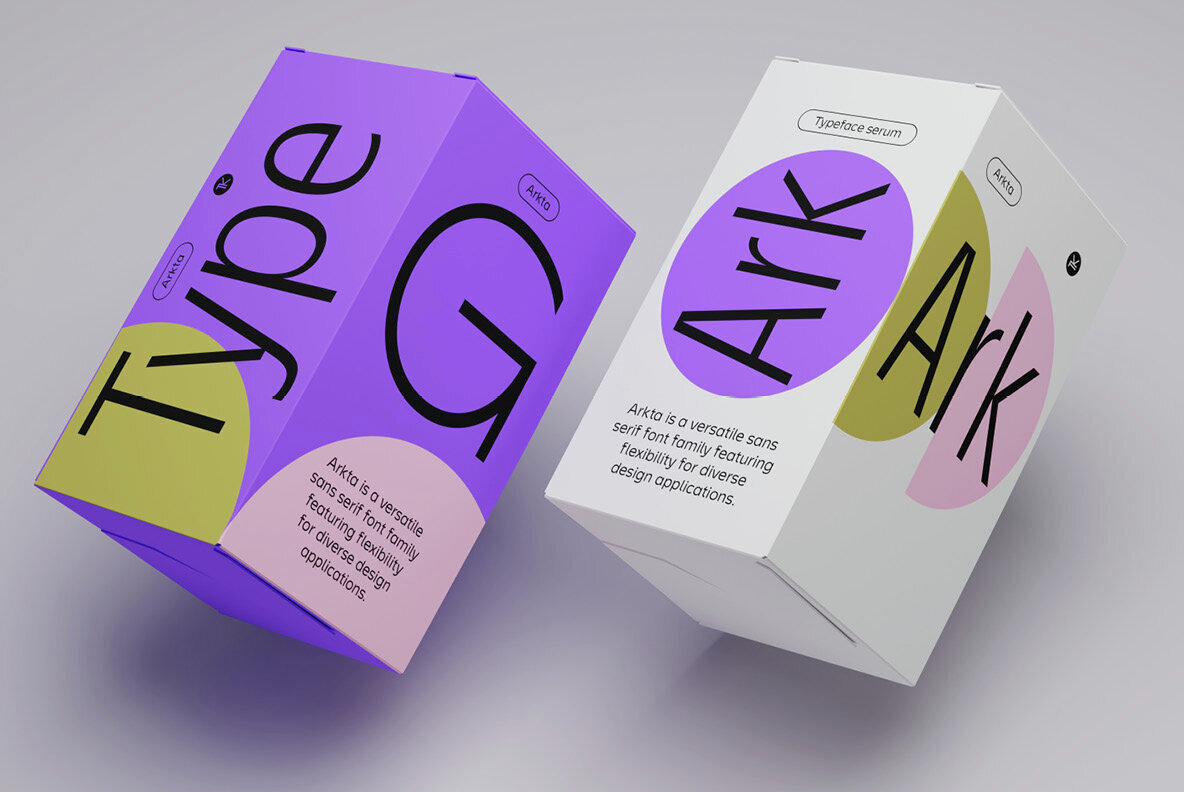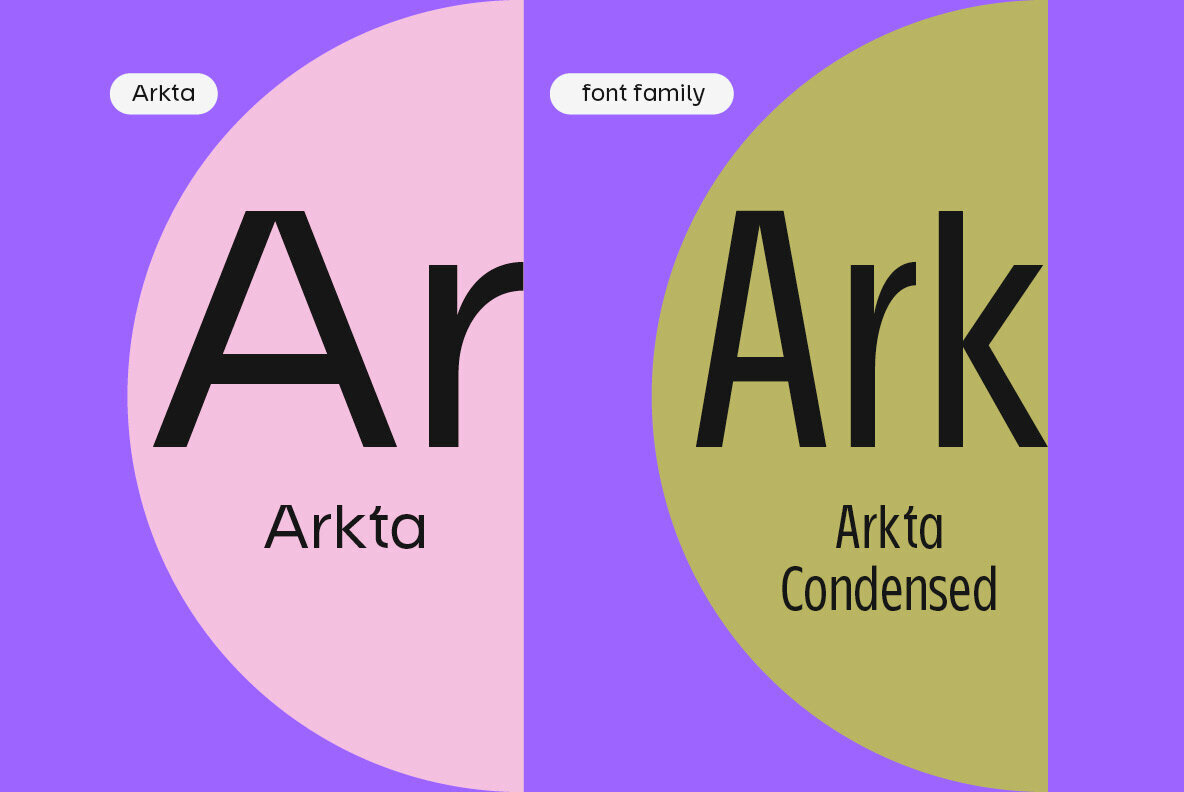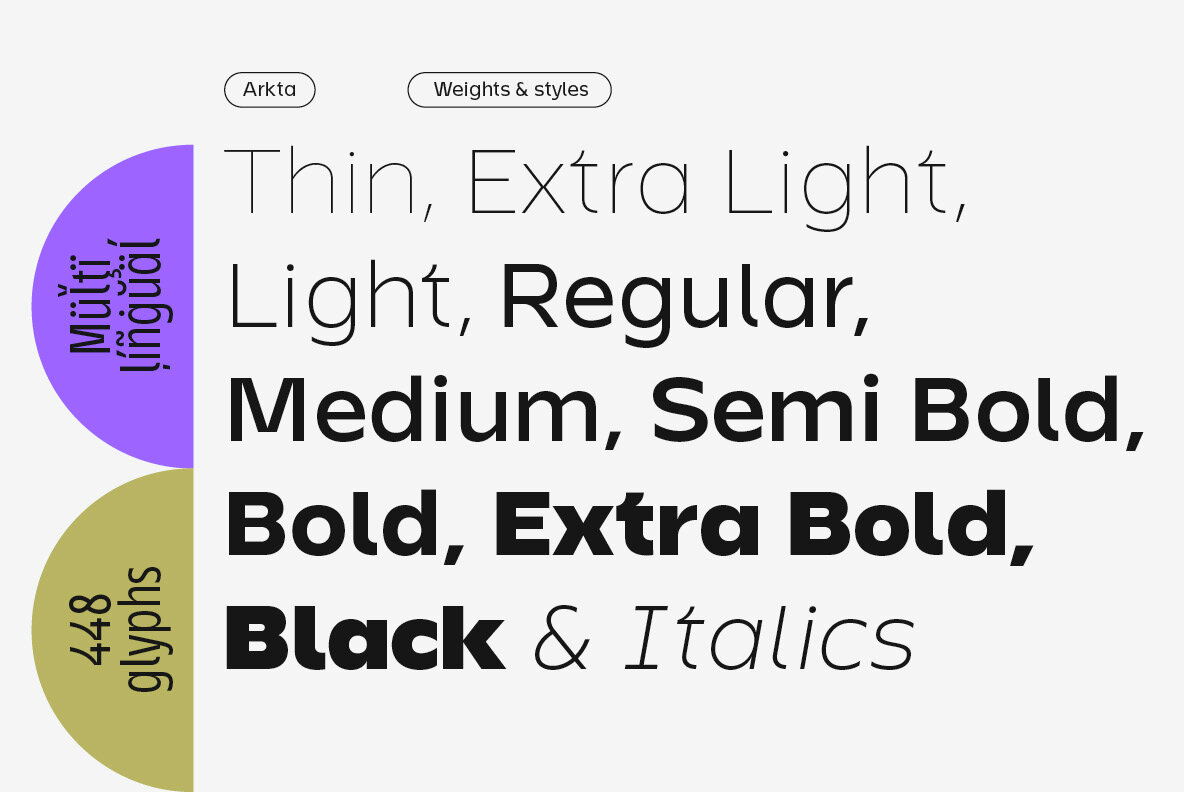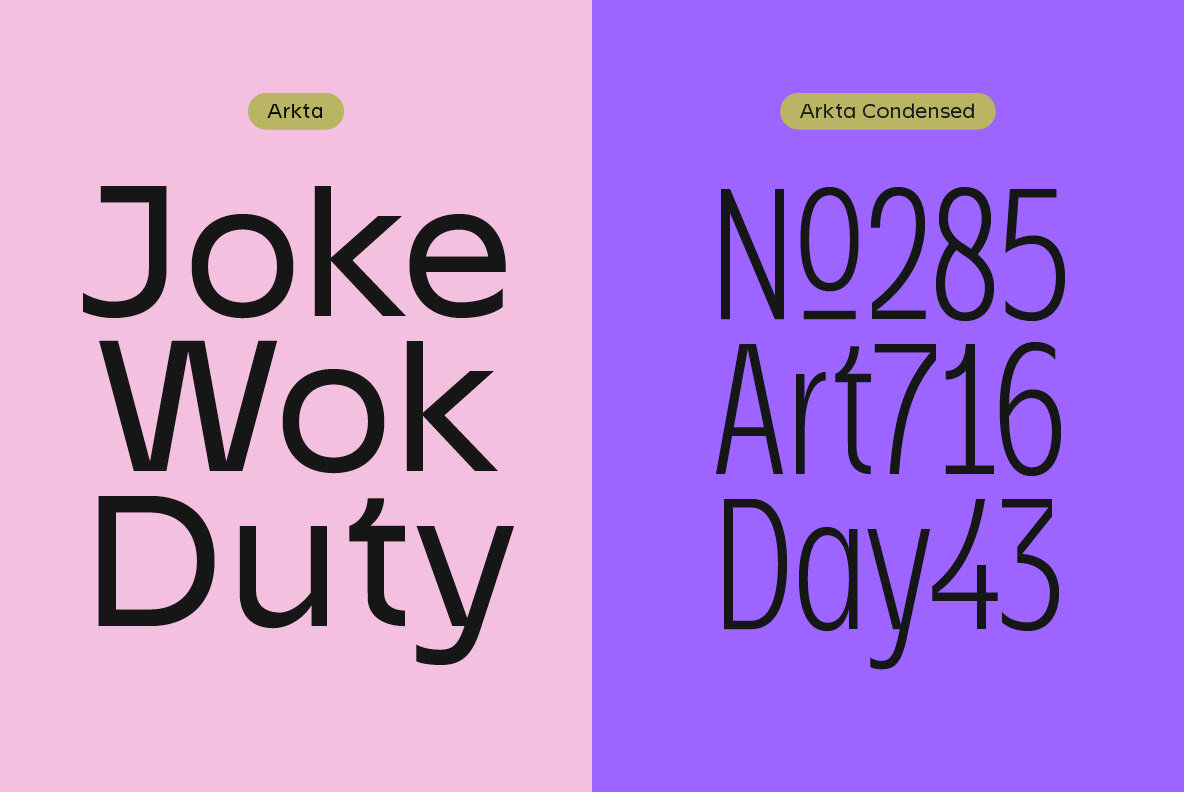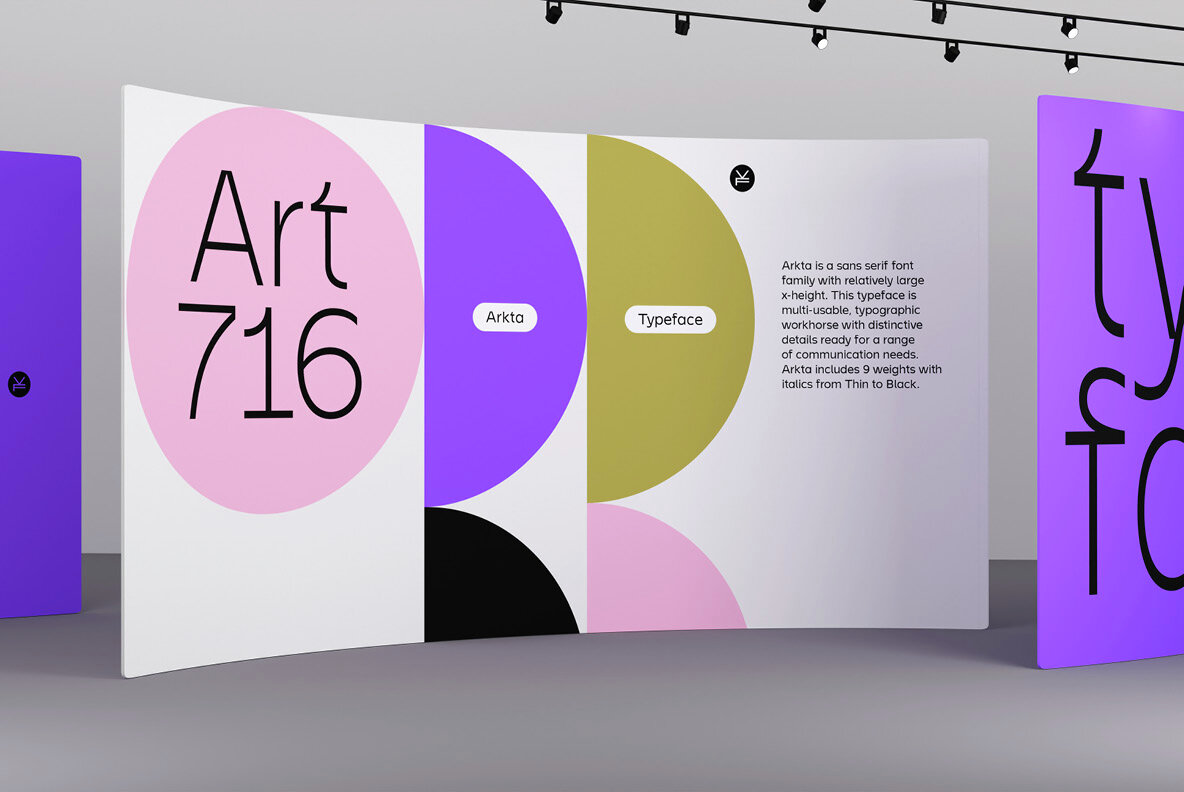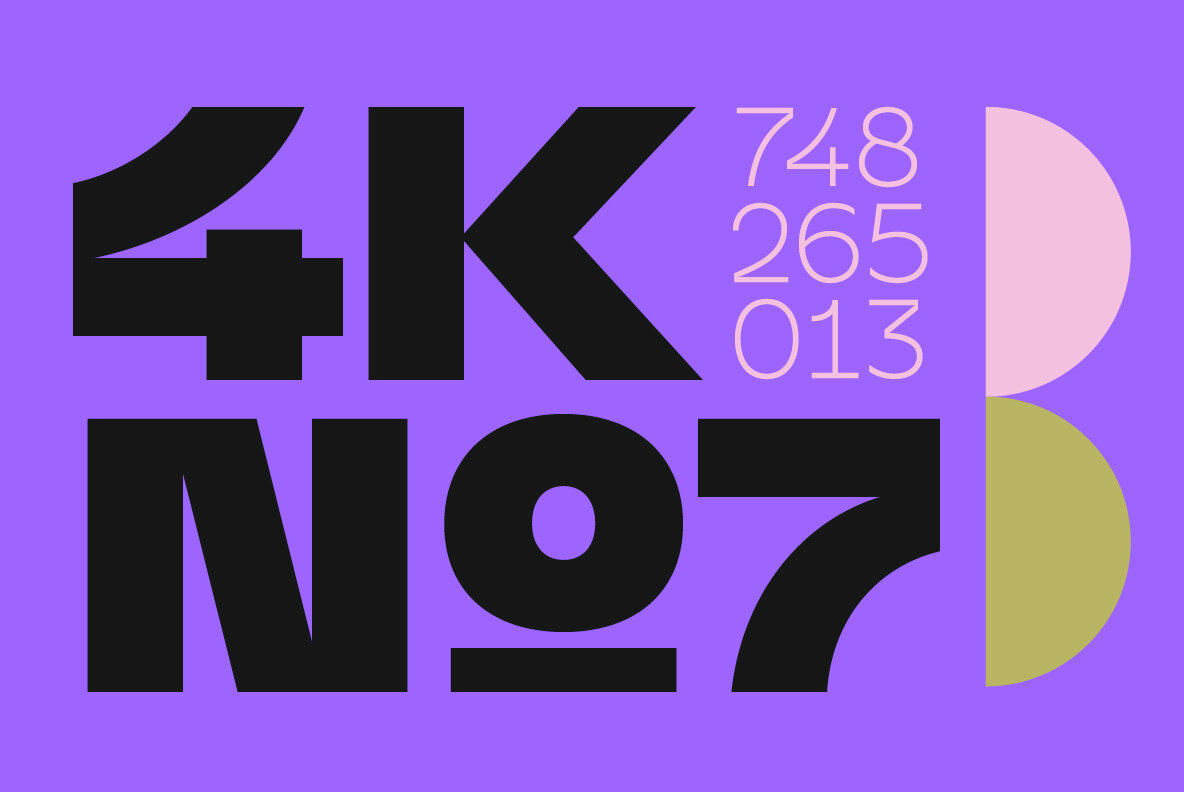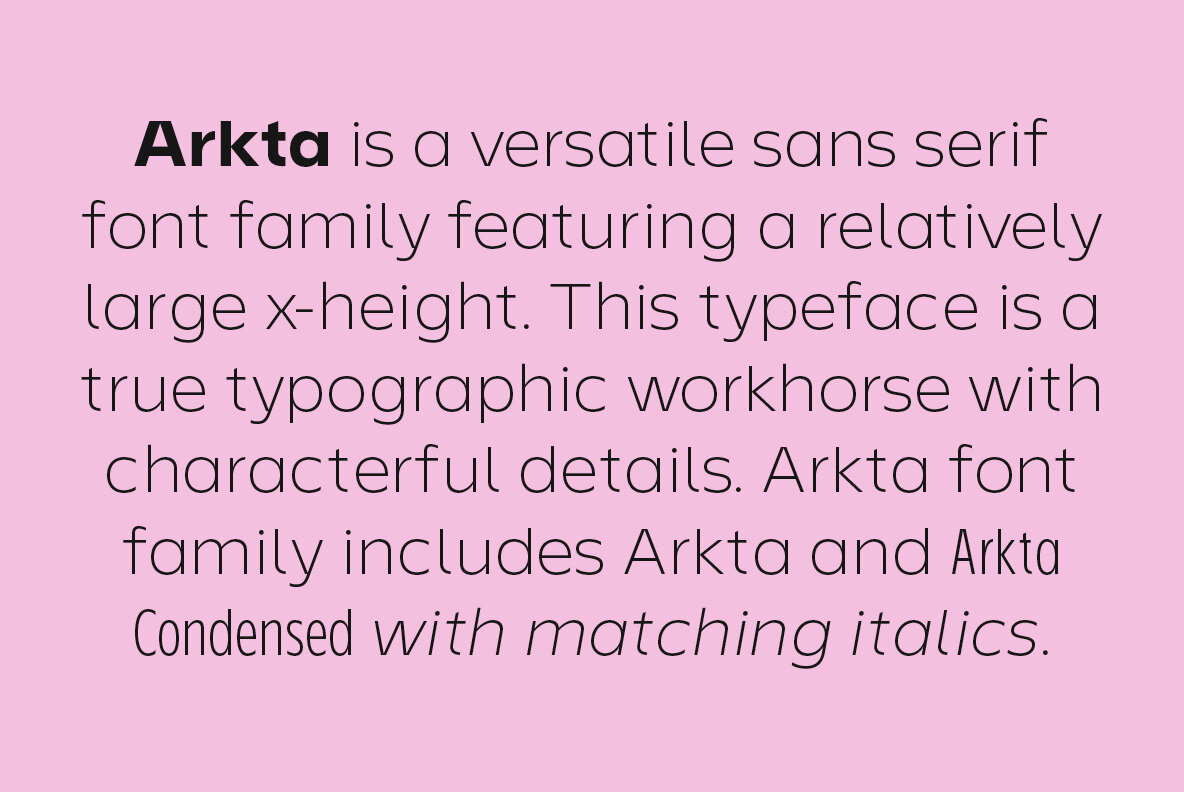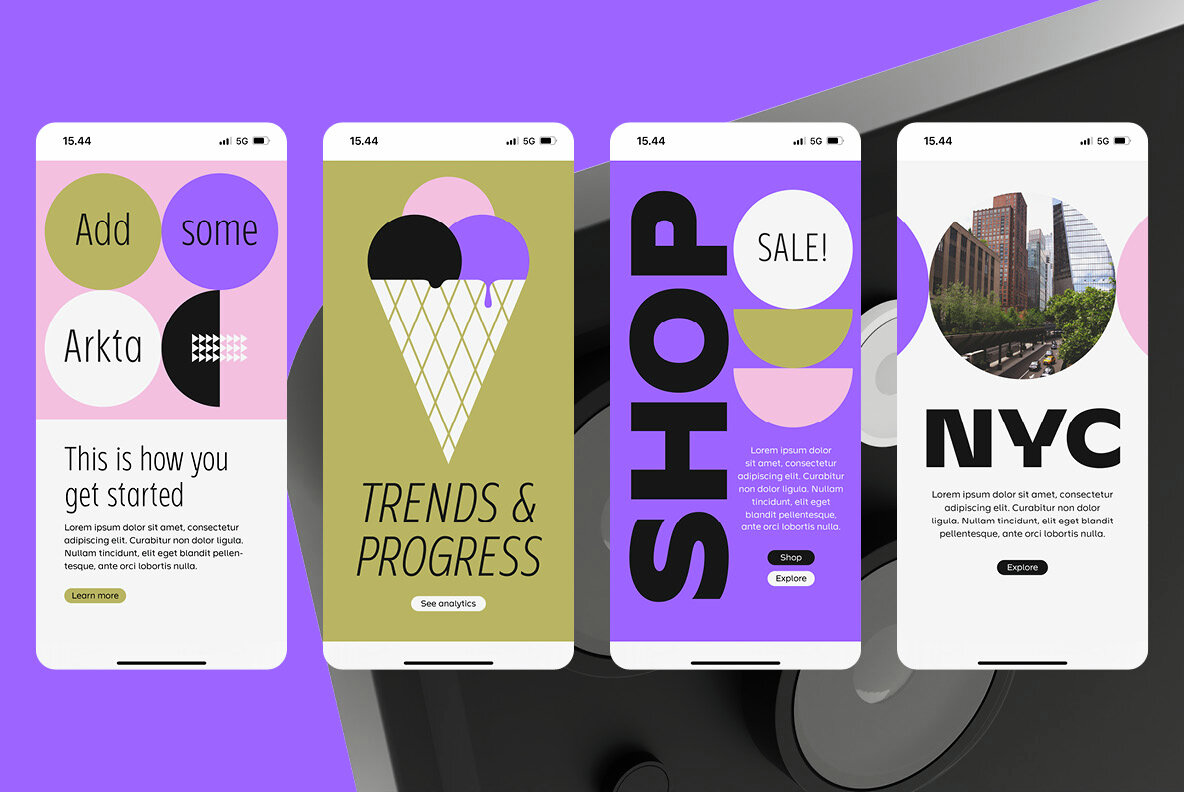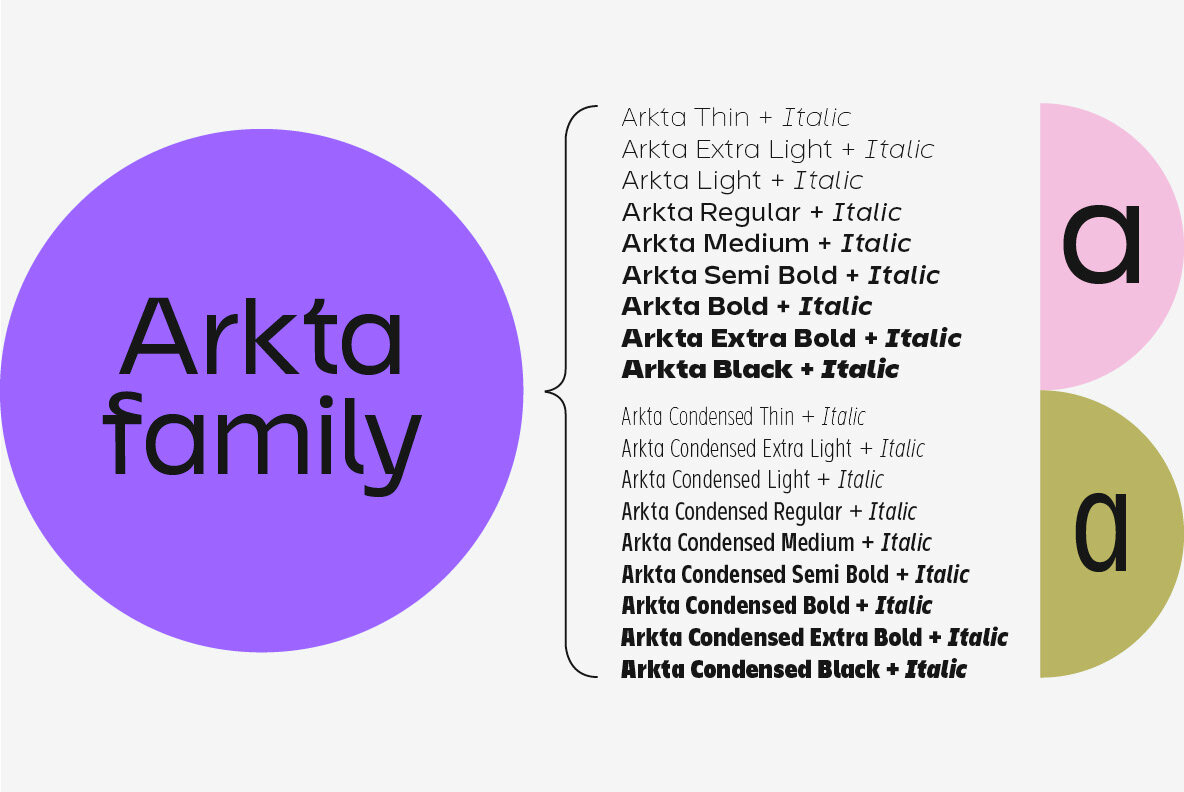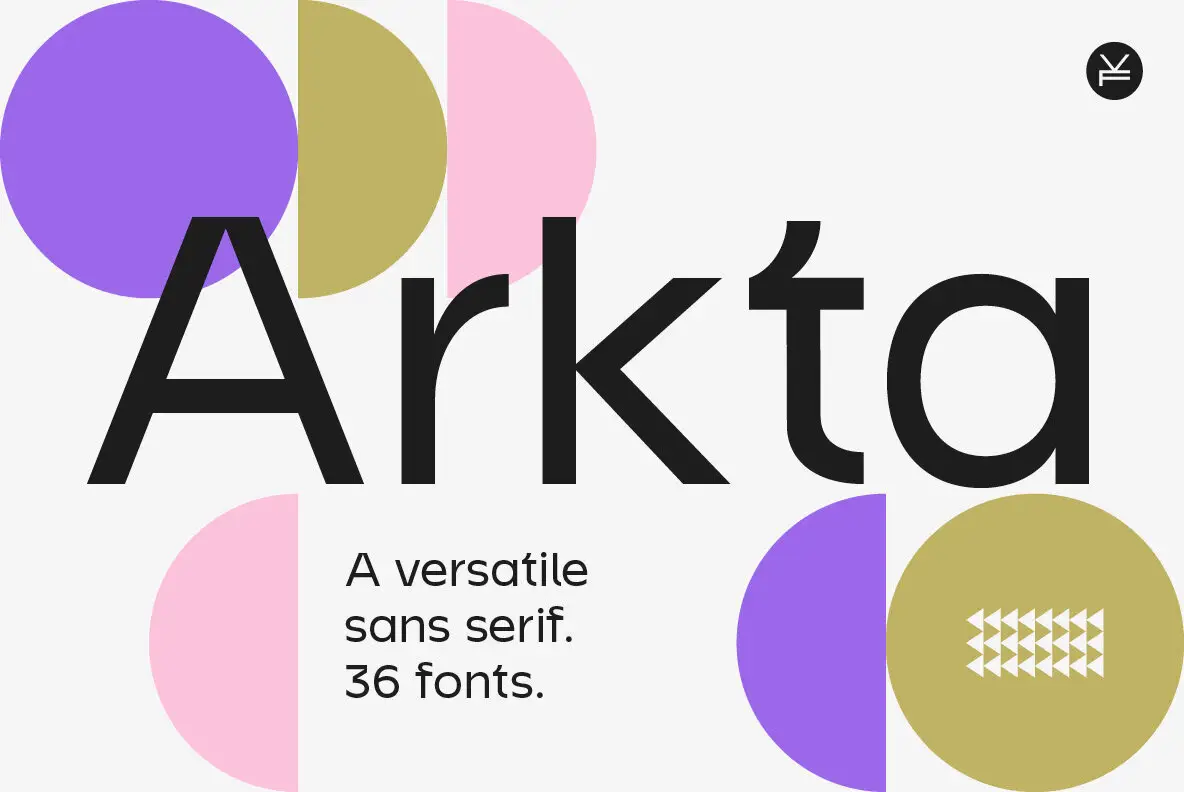
Arkta Font
Arkta is a versatile sans serif font family with a generous x-height, designed for both readability and visual impact. A true typographic workhorse, Arkta balances functionality with distinctive character, making it an excellent choice for branding, editorial design, and digital interfaces. The Arkta font family includes 18 styles with matching italics, along with Arkta Condensed, which also features 18 styles with matching italics, providing a complete typographic solution for diverse design needs. With extensive Latin language support, a Stylistic Set, standard ligatures, and other typographic refinements, Arkta delivers both flexibility and style for modern typography.